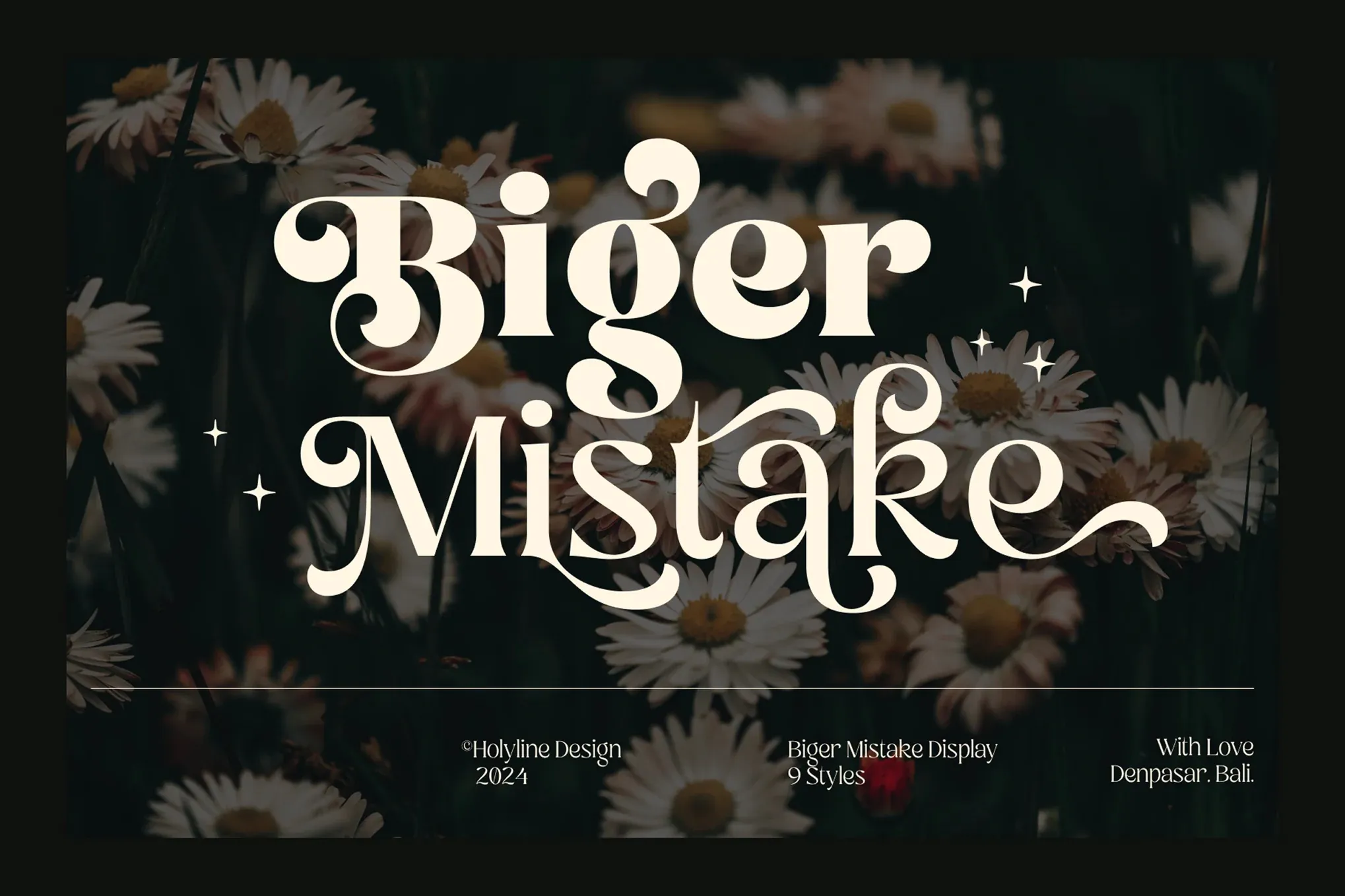
Biger Mistake Retro Playful Display Typeface Font
Biger Mistake is a retro-inspired serif font with bold elegance, 9 weights, and stylish alternates—perfect for standout designs.
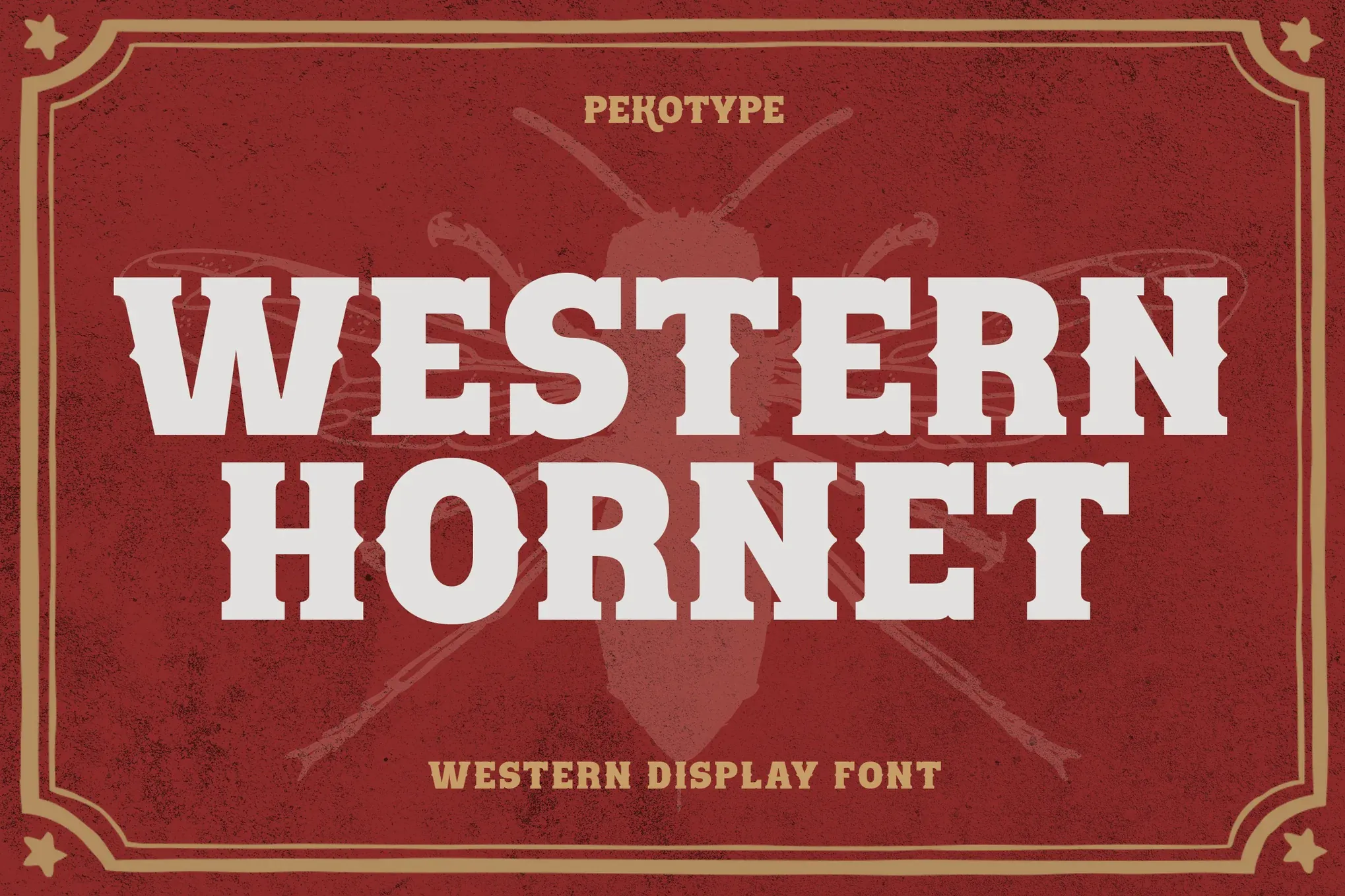
Western Hornet – Western Display Font
Bold western slab serif font blending vintage Americana and modern design—perfect for branding, posters, packaging, and rustic themes.
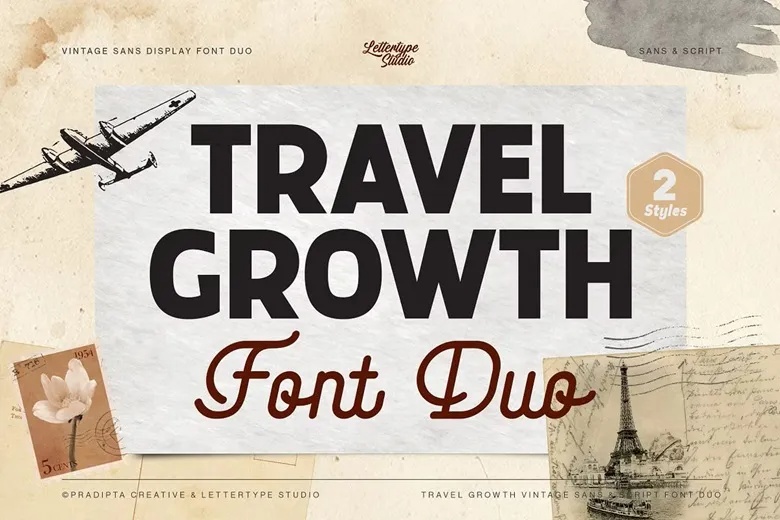
Travel Growth Duo Font
The Travel Growth Vintage Font Duo offers bold, versatile, and elegant designs, perfect for branding, web design, and creative projects.
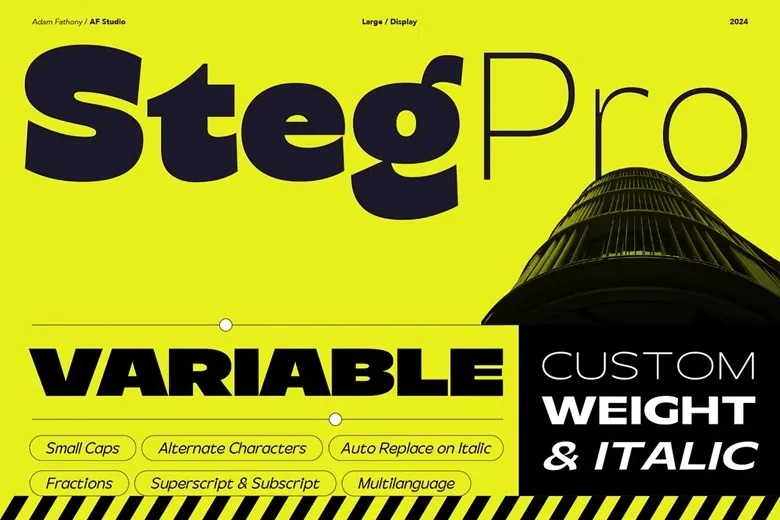
Steg Pro Font
Steg Pro is an ultra-bold sans serif typeface with clean lines, ideal for headers, titles, and modern design concepts.
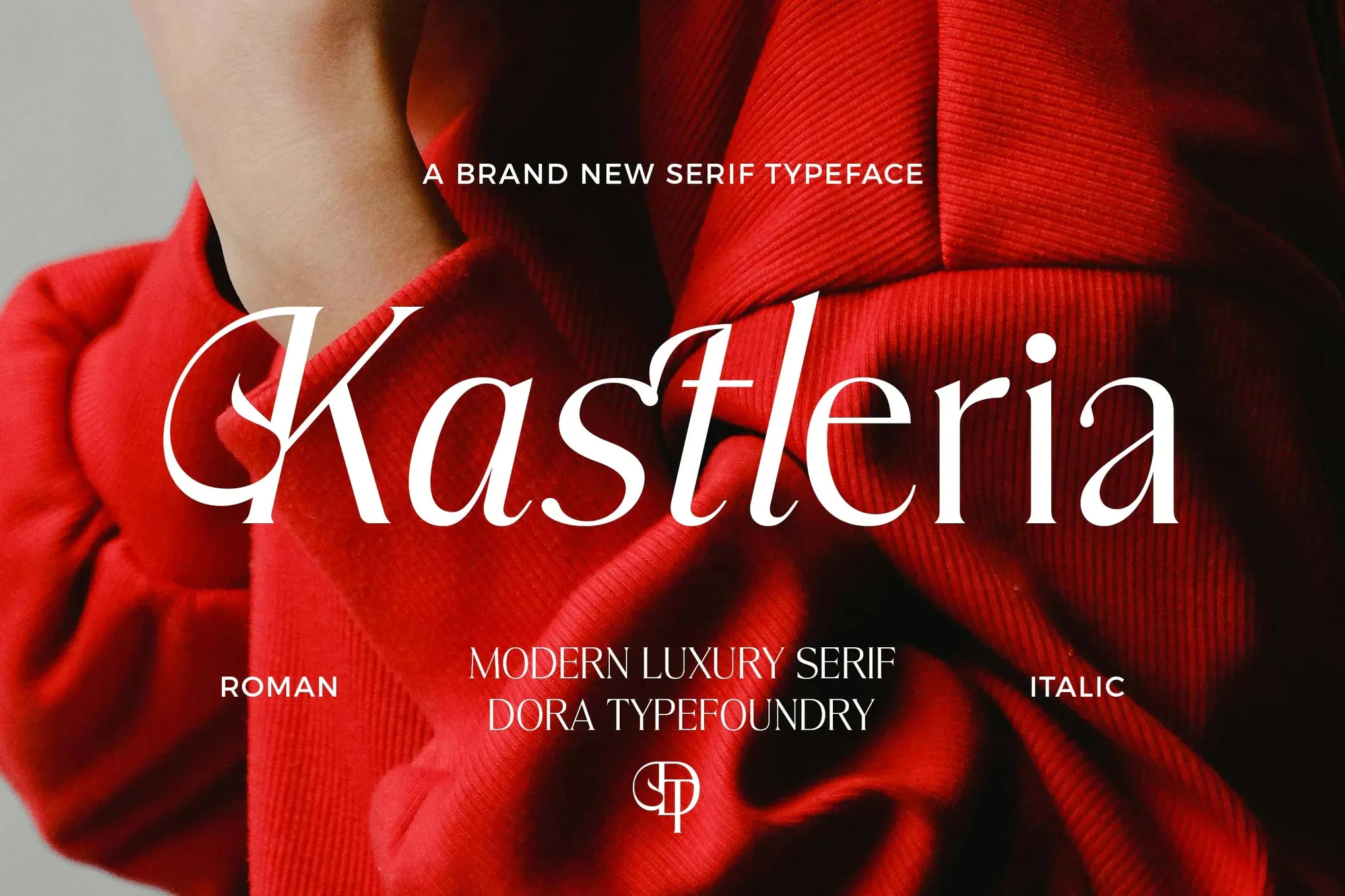
Kastleria Luxury Serif Font
Kastleria is a sophisticated serif typeface with clean lines, a true italic version, offering timeless elegance and modern flexibility.
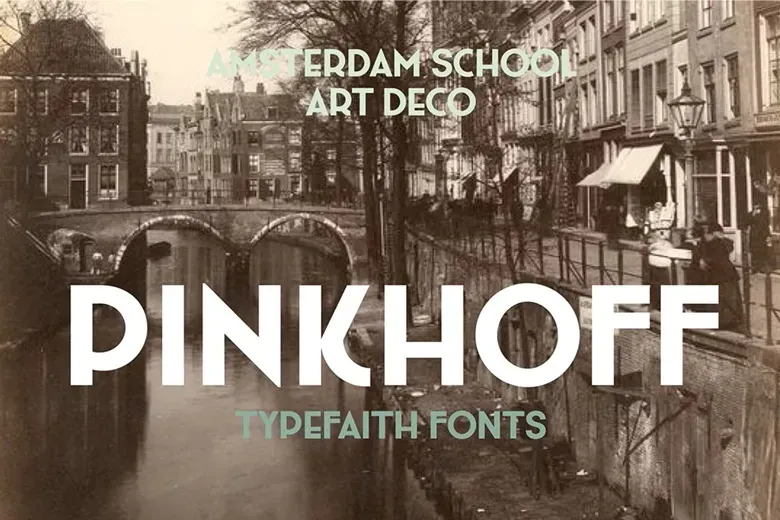
Pinkhoff Caps Font
Pinkhoff Caps is a modern art deco font, blending 1920s charm with 1930s nostalgia, offering stylish vintage appeal.
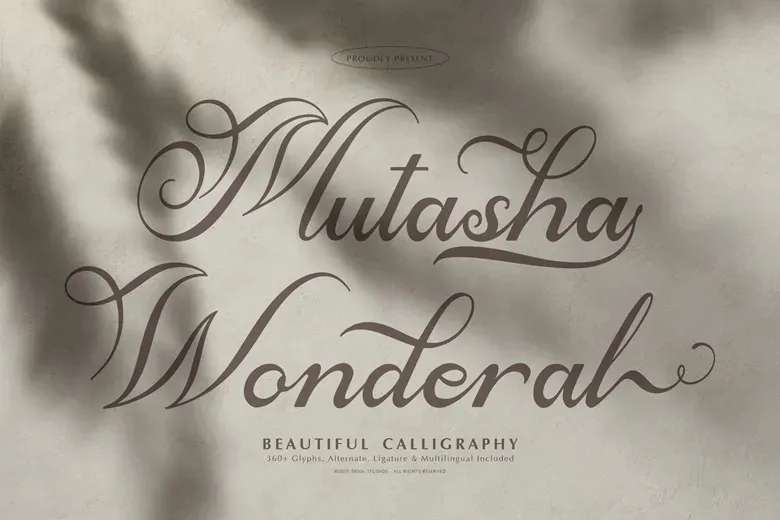
Mutasha Wonderal Font
Mutasha Wonderal is an elegant, modern calligraphy font, perfect for logos, branding, packaging, t-shirts, posters, and invitations.
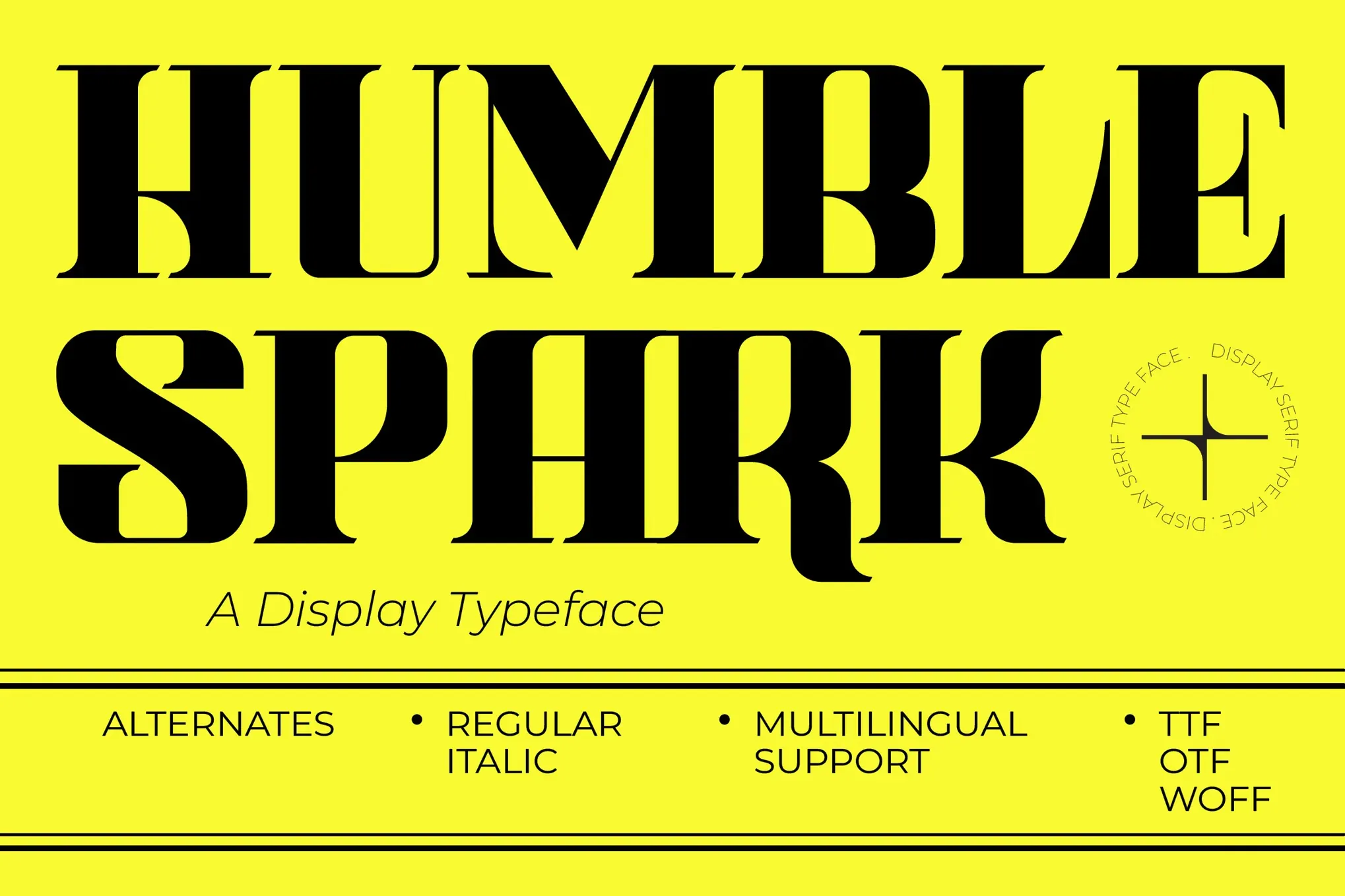
Humble Spark
Humble Spark is a stylish handwritten script font with smooth curves, perfect for adding a personal, creative touch to projects.
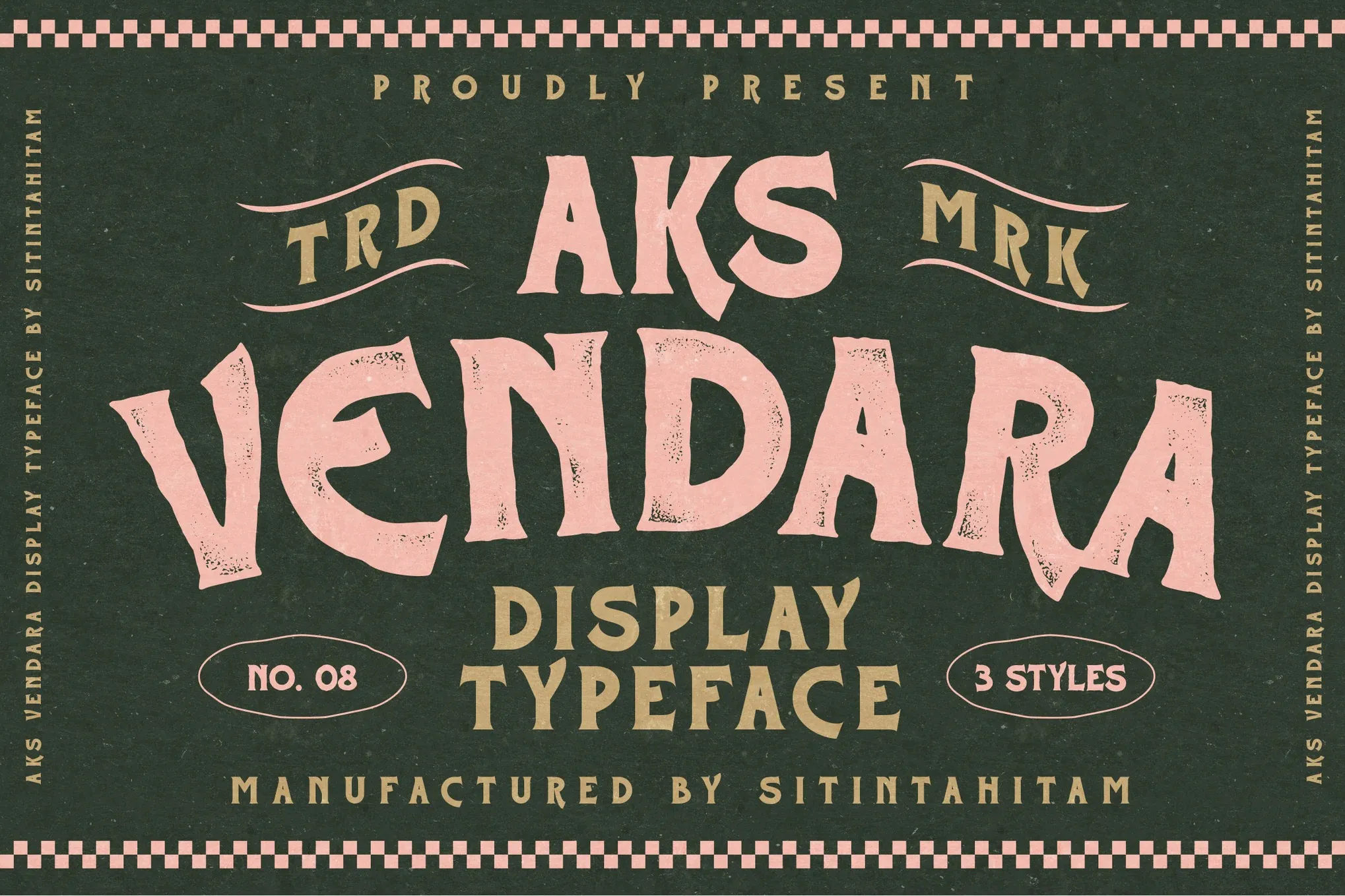
AksVendara
Aks Vendara is a bold, vintage-inspired display typeface with rugged styles, perfect for branding, logos, posters, and custom culture designs.
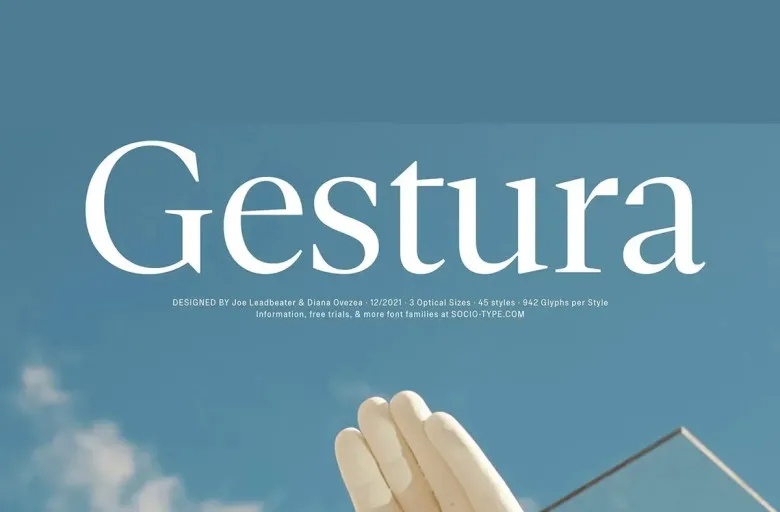
Gestura Font Family
Gestura is an elegant serif font rooted in 16th-century tradition, blending Granjon’s legacy with modern touches from Plantin.
Ceno Font Family
Ceno is a geometric sans-serif font family with grotesque design elements, offering 16 variants, including Meso and italic versions.
Raceline Sport And Display Font
Raceline Font is a bold, modern display typeface perfect for logos, t-shirt printing, branding, and esports designs. Personal use only.
Opixalt Modern Pixel Logo Font
Opixalt is a bold, modern game font perfect for logos, branding, posters, and creative designs. Personal use only.
Melun Font Family
Melun offers clean, modern lines, perfect for design projects requiring versatile sans-serif typefaces with unique, bold features.
Helavite 3D Font
Helavite 3D combines modern serif elegance with subtle 3D effects, perfect for luxury branding, editorial, and upscale designs.
Mestuny Bridjon Modern Brush Script Font
Mestuny Bridjon is a modern handwritten brush script font with vintage elegance, perfect for branding, invitations, and quotes.
Qallies Elegant Handwritten Font
Qallies Script Font brings elegance to your designs with its flowing handwritten style, perfect for logos, invitations, and more.
Growpia Font
Growpia is a modern, bold condensed sans serif font, perfect for headlines, titles, logos, posters, and branding materials.
Remonila Elegant Handwritten Font
Elegant, stylish, and modern handwritten script font perfect for logos, invitations, branding, and more. Includes full characters, multilingual support.
Selonika Handwritten Script Font
Elegant and stylish handwritten font perfect for logos, invitations, branding, and more. Selonika Script adds charm and sophistication.
Heranch Font
Heranch is an elegant serif font blending heritage and refinement, perfect for editorial design, boutique branding, and upscale packaging.
Metroway Font